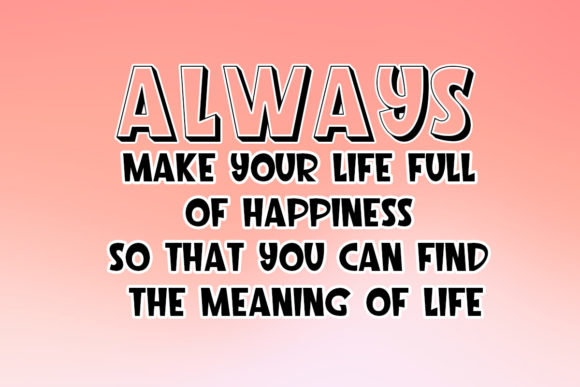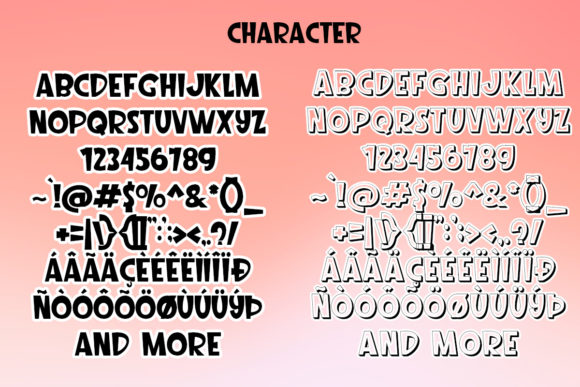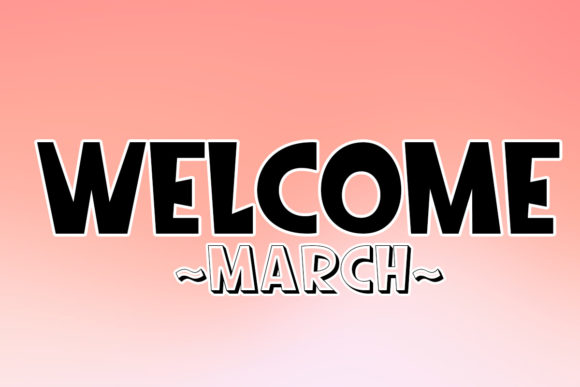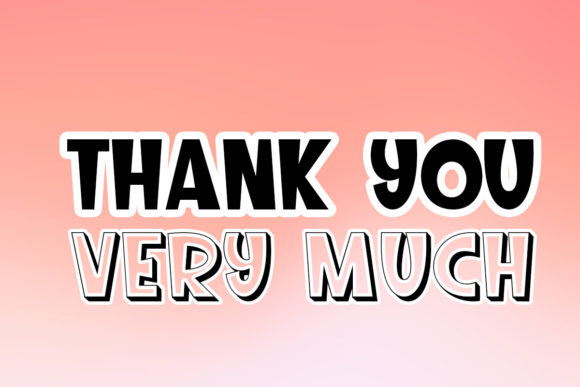
Introducing Friendster Font: The Quirky and Sweet Display Font
Are you a designer or crafter looking for a font that adds a touch of whimsy and charm to your creations? Look no further than Friendster Font! This incredibly quirky and sweet display font is perfect for cartoon-related designs, children’s games, and any project that requires a lovely touch. In this article, we’ll dive into the features and benefits of Friendster Font, and explore how you can use it to elevate your designs.
What is Friendster Font?
Friendster Font is a unique and eye-catching display font that’s sure to capture attention. Its quirky and sweet design makes it perfect for projects that require a playful and charming touch. The font features rounded edges, irregular shapes, and a carefree vibe that’s reminiscent of childhood nostalgia. Whether you’re designing a logo, creating a children’s book, or crafting a social media graphic, Friendster Font is an excellent choice.
Key Features of Friendster Font
- Quirky and Sweet Design: Friendster Font boasts a one-of-a-kind design that’s both quirky and sweet. Its irregular shapes and rounded edges give it a playful and charming vibe.
- Display Font: Friendster Font is a display font, making it perfect for headlines, titles, and short phrases.
- Cartoon-Related Designs: The font’s playful design makes it an excellent choice for cartoon-related designs, such as character logos, animations, and comics.
- Children’s Games and Education: Friendster Font is also suitable for children’s games, educational materials, and parenting blogs.
- Easy to Read: Despite its quirky design, Friendster Font is easy to read, making it perfect for short phrases and titles.
Benefits of Using Friendster Font
So, why choose Friendster Font for your next project? Here are just a few benefits of using this lovely font:
- Adds a Touch of Whimsy: Friendster Font adds a touch of whimsy and charm to any design, making it perfect for projects that require a playful vibe.
- Stand Out from the Crowd: The font’s unique design ensures that your project will stand out from the crowd and grab attention.
- Perfect for Kids and Families: Friendster Font is an excellent choice for projects targeting kids and families, such as children’s books, parenting blogs, and kids’ games.
- Versatile: Despite its playful design, Friendster Font is versatile and can be used for a wide range of projects, from logos to social media graphics.
How to Use Friendster Font
Using Friendster Font is easy! Here are a few tips to get you started:
- Pair with Other Fonts: Pair Friendster Font with other fonts to create a unique and visually appealing design.
- Use for Headlines and Titles: Use Friendster Font for headlines and titles to add a touch of whimsy and charm.
- Experiment with Colors: Experiment with different colors to find the perfect combination that matches your brand or project’s vibe.
| Font Name | Friendster Font |
| Author | edwar.sp111 |
In conclusion, Friendster Font is an incredibly quirky and sweet display font that’s perfect for designers and crafters looking to add a touch of whimsy and charm to their creations. With its unique design, versatility, and ease of use, Friendster Font is an excellent choice for cartoon-related designs, children’s games, and any project that requires a lovely touch. So, what are you waiting for? Give Friendster Font a try and elevate your designs to the next level!